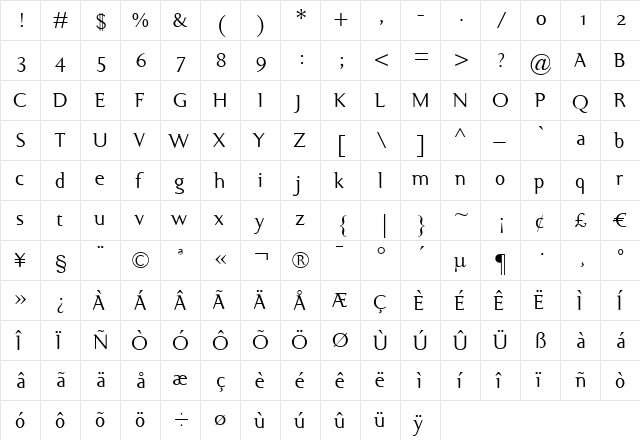
Ela Demiserif Regular
Design Context for Ela Demiserif Typeface
Ela Demiserif carries the refined structure of traditional serif typography, with bracketed terminals and considered proportions that communicate credibility and craft.
Pro Tip: Use Ela Demiserif for editorial body copy and considered headline work. Pair with a neutral sans for UI elements or captions to create a classic hierarchy.